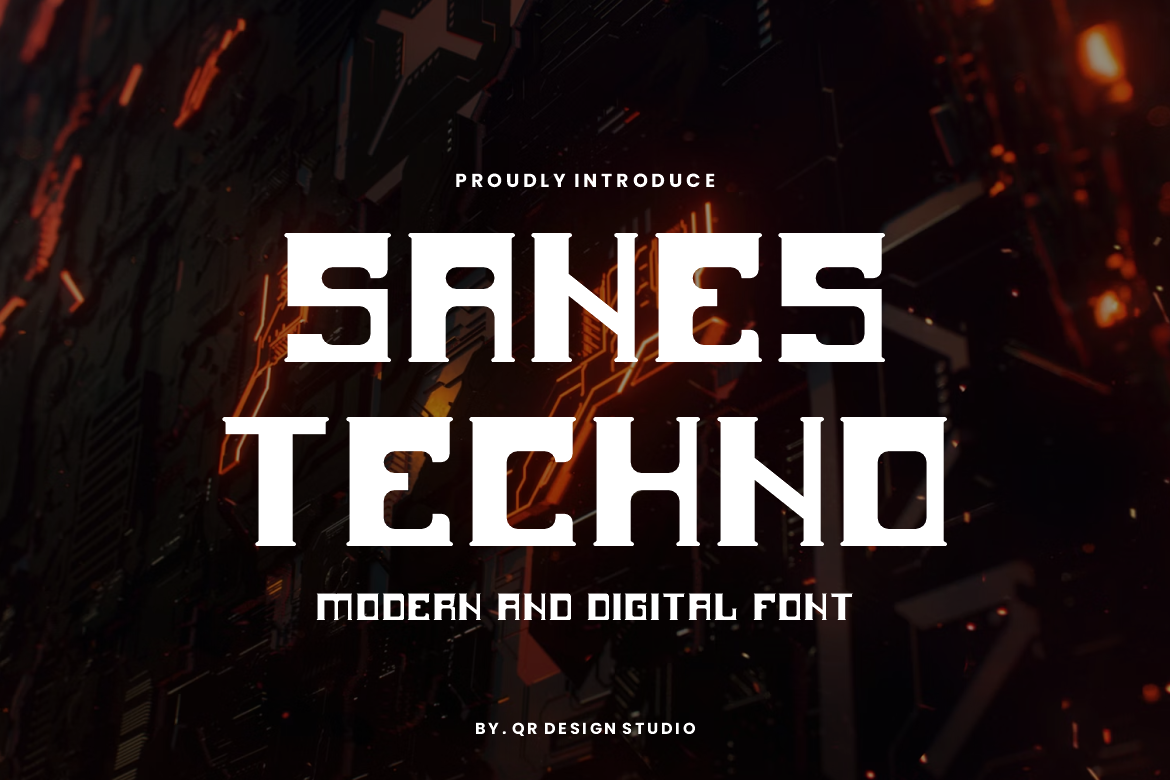
Sanes Techno - Digital Font
Sanes Techno Font is a bold and authentic display font. The font is suitable for any branding project like poster, logo, sport, and many more. Outstanding in a wide range of contexts.